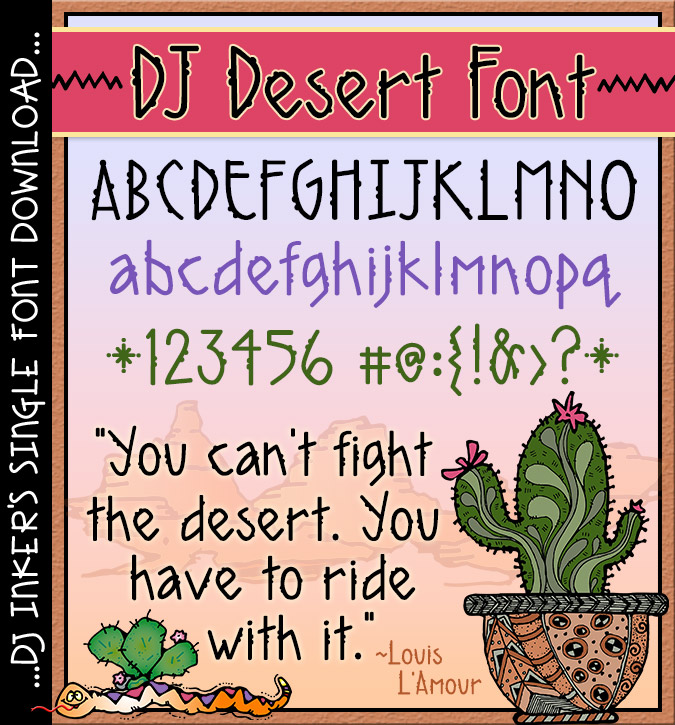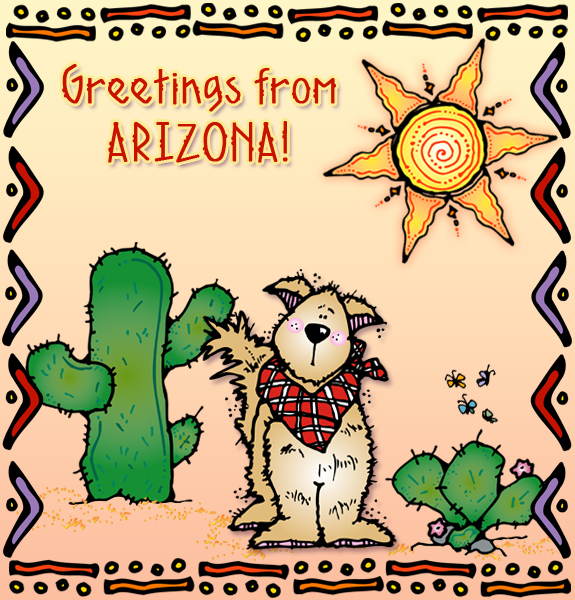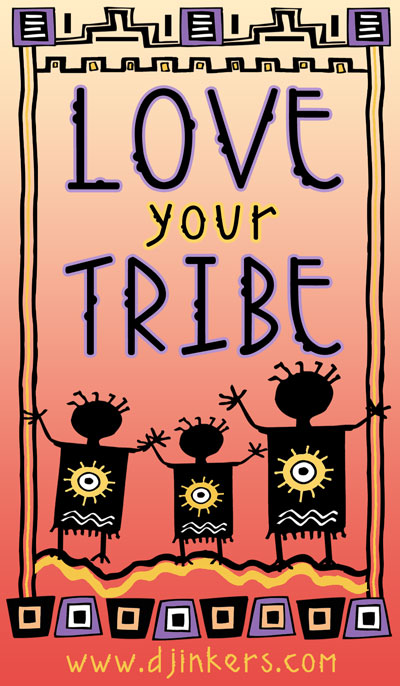
If your font collection is a little dry... add a smile with our hot, DJ Desert font!
Perfect for southwest smiles, cowboys, cactus clip art, Native American
or tribal creations, desert animals and more.